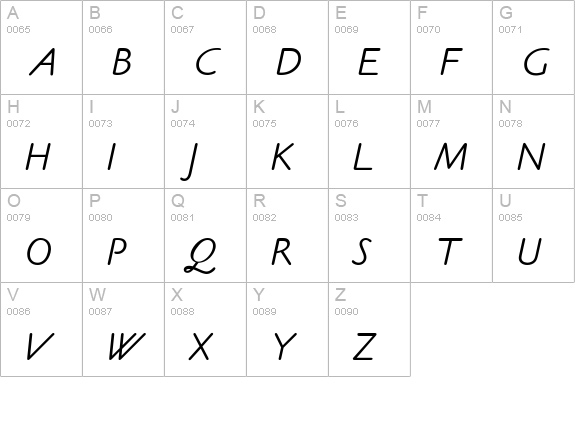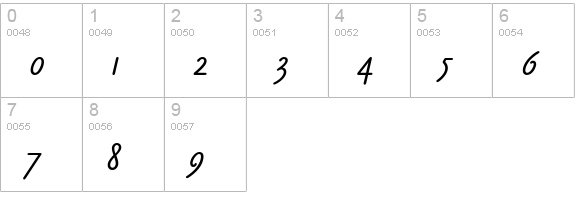
ClaudeSansItalicPlain Font Details
ClaudeSansItalicPlain font is a stylish and elegant typeface that brings a touch of sophistication to any design project. Its sleek and slanted italic style adds a modern flair to your text, making it perfect for titles, headings, and other attention-grabbing elements. This font exudes a sense of class and refinement, making it suitable for a wide range of applications, from branding and advertising to editorial design and more. With its clean lines and graceful curves, ClaudeSansItalicPlain font is sure to elevate the visual appeal of any project. Best of all, this font is free to download at FontsMarket.com, making it accessible to designers and creatives looking to add a touch of elegance to their work without breaking the bank. Don't miss out on the opportunity to enhance your designs with ClaudeSansItalicPlain font today!